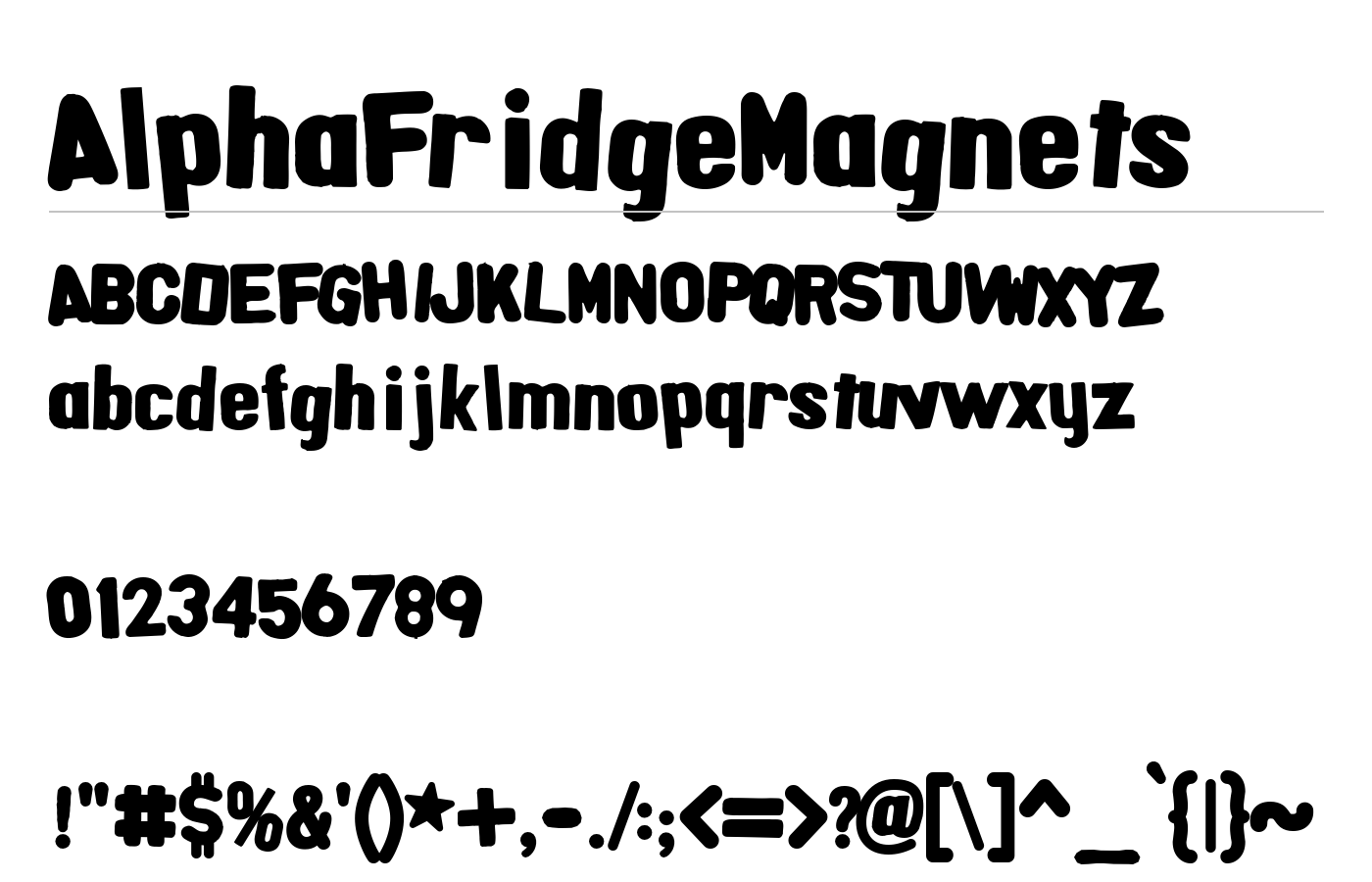
AlphaFridgeMagnets is a bold, playful sans serif font with a chunky, irregular style that mimics the look of refrigerator magnet letters. Its moderately tall x-height and slightly uneven, rounded edges give it a casual, friendly feel that works well for fun, informal designs aimed at children or playful branding. This font is perfect for headlines, posters, and packaging where a lighthearted, approachable tone is desired.
AlphaFridgeMagnets Font
About AlphaFridgeMagnets Font